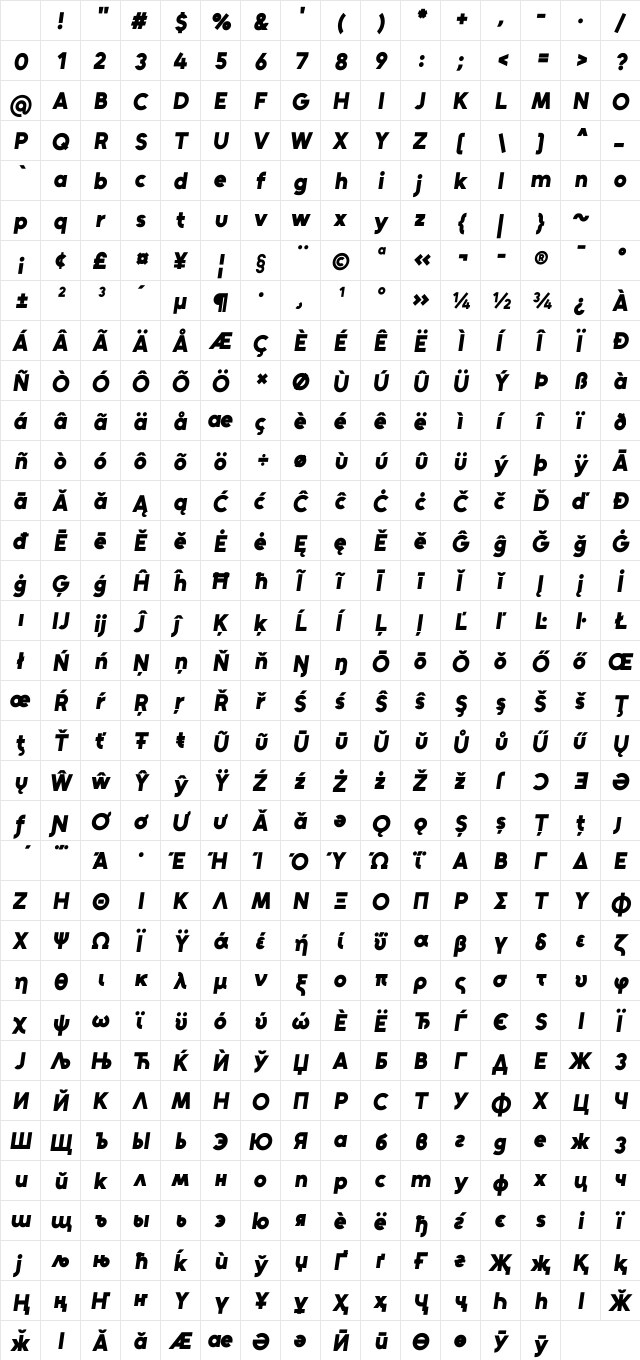
Unageo is a composed and adaptable typeface that performs quietly and consistently across a wide range of design contexts. The slanted form adds forward momentum and visual energy.
Pro Tip: Use Unageo for emphasis, pull quotes, and subheadings where its slanted energy can add rhythm to the layout.